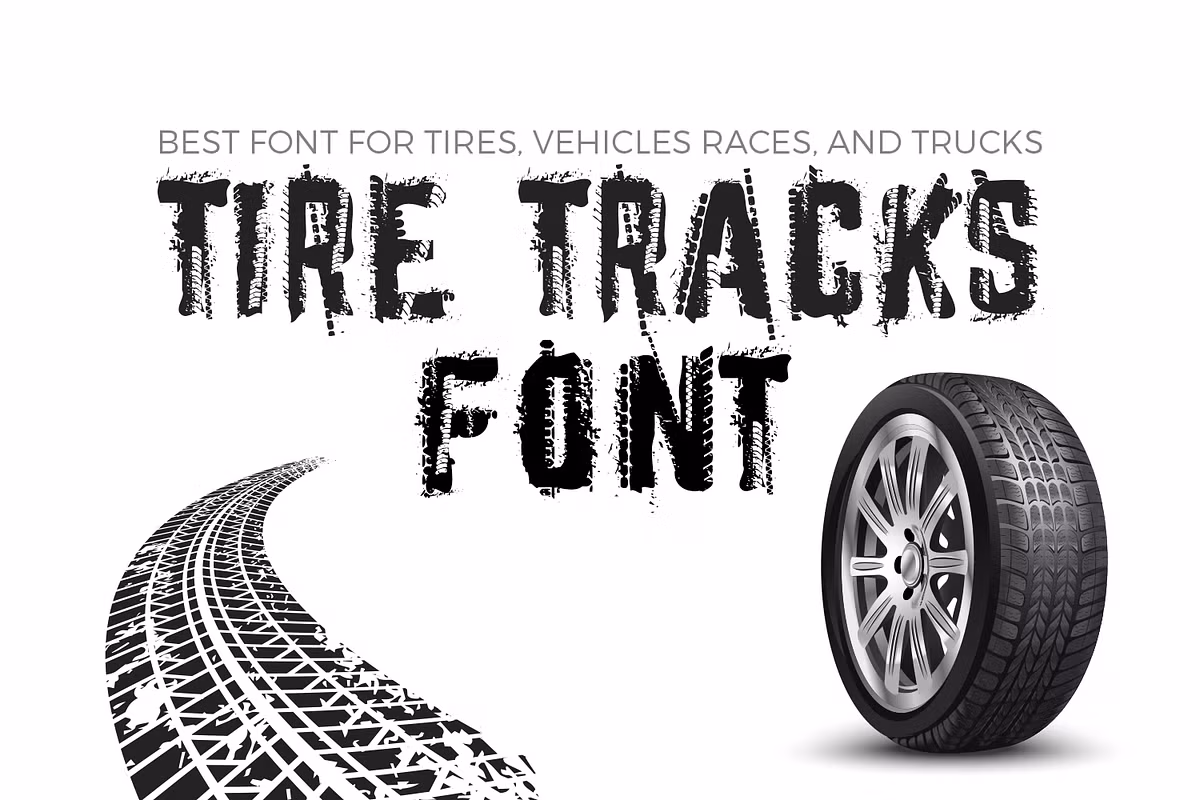
Tire Tracks Font Free Download
Rugged, bold, and full of character, Tire Tracks Font Free Download is a unique display typeface inspired by the patterns left by tire treads. Perfect for off-road branding, logos, racing events, sports designs, and any project that requires a strong, industrial feel, this font captures the essence of adventure and power.
With its distressed, textured design, Tire Tracks adds an edgy and dynamic touch to your typography, making it ideal for designs that need to convey strength, movement, and durability. Whether you’re working on a logo, a vehicle-related project, or an outdoor event promotion, this font brings a raw, untamed vibe to your visuals.